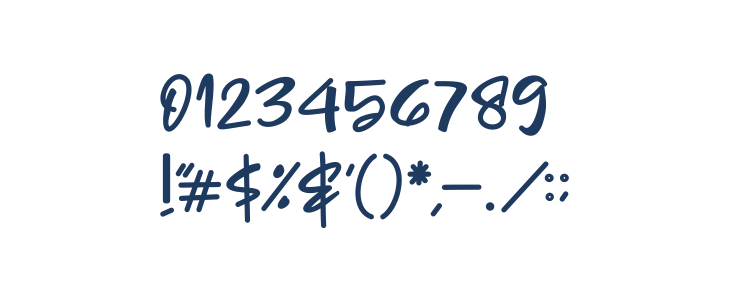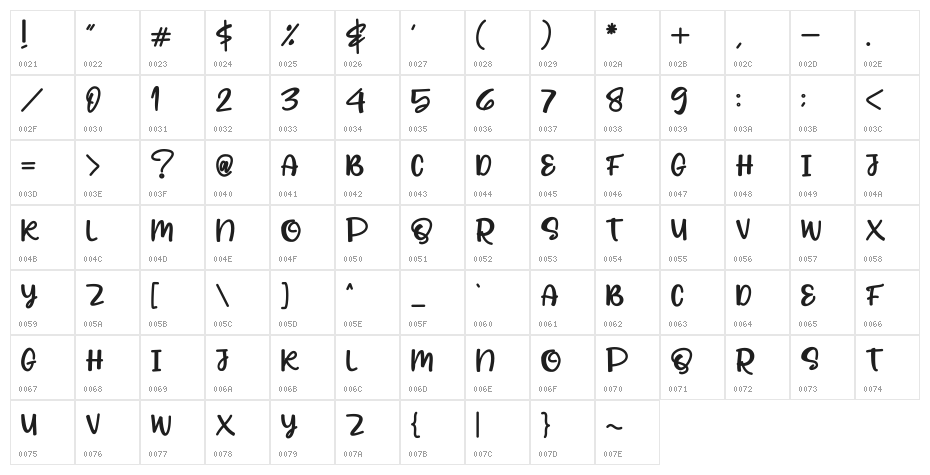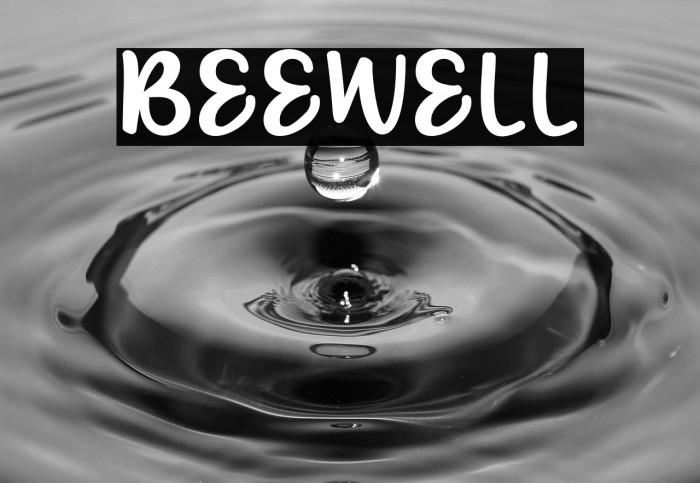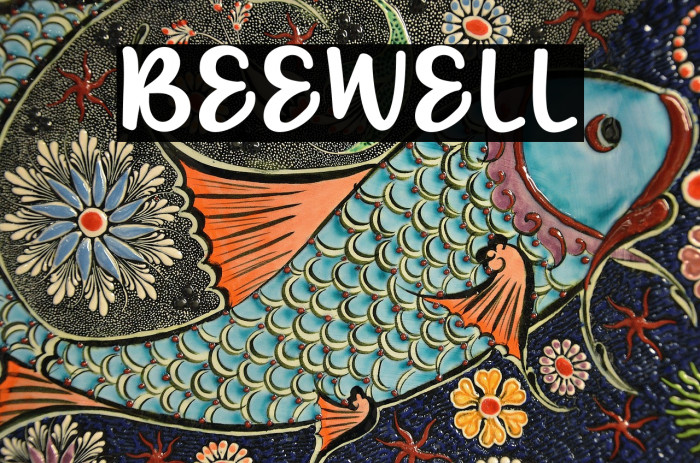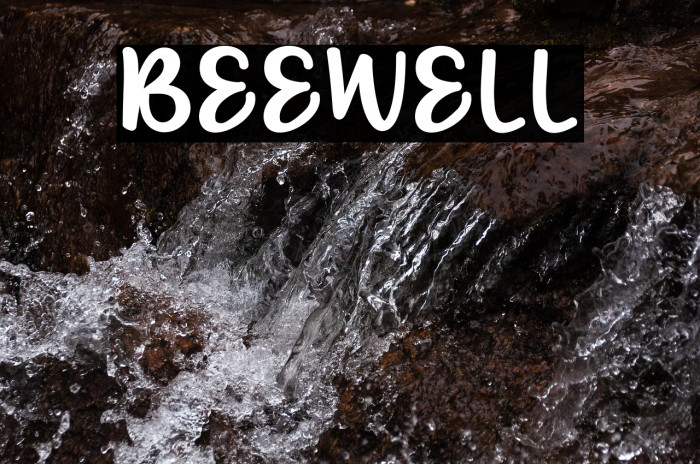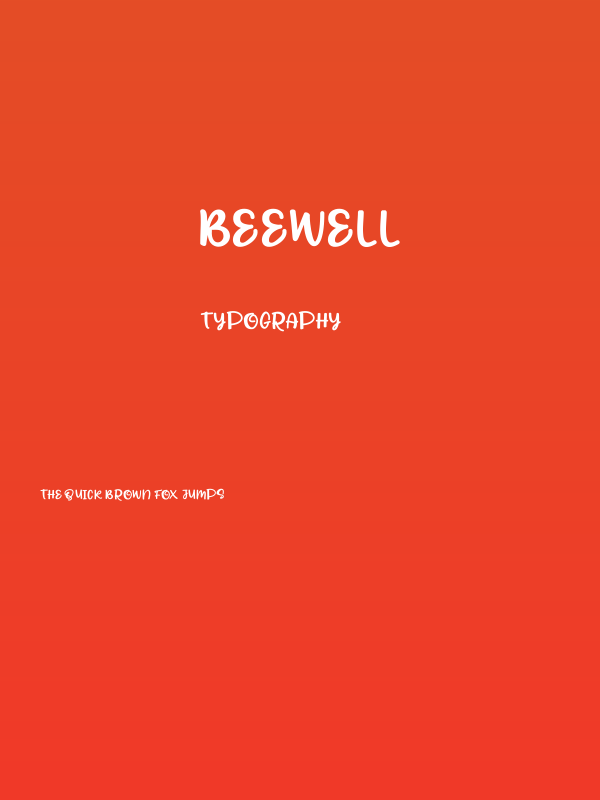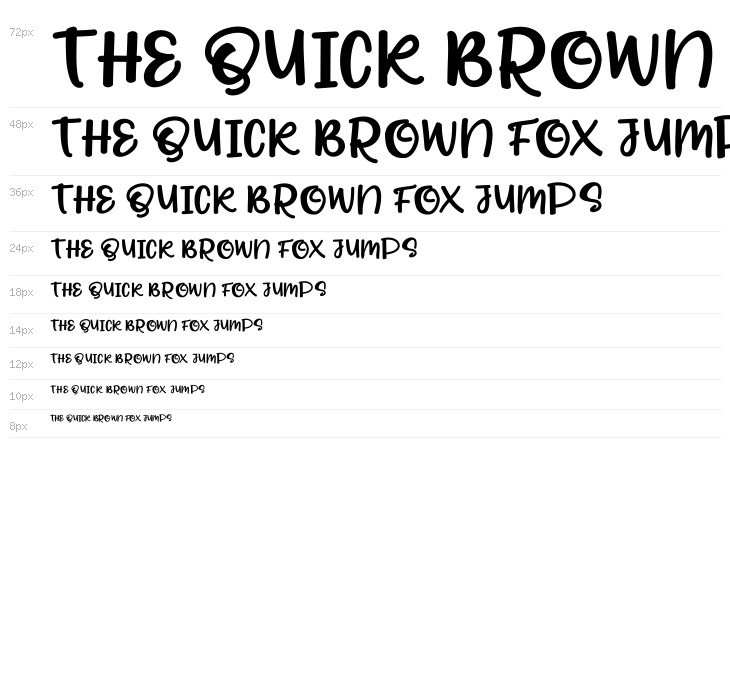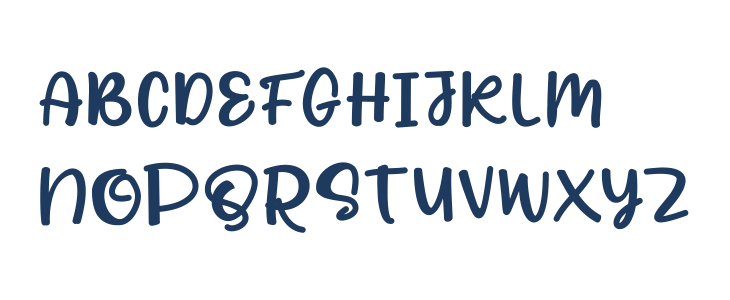
BEEWELL Font
BEEWELL Description
This font features a playful and energetic handwritten style, characterized by its bold and rounded letterforms. The strokes are thick and consistent, giving it a strong presence on the page. The letters are slightly slanted, adding a dynamic and informal feel. The uppercase and lowercase letters maintain a consistent style, with smooth curves and a friendly appearance. The numerals and special characters are equally bold and maintain the playful aesthetic, making the font versatile for various uses.
| Use Case | Logos, Headlines, Informal Text |
| Proposed Projects | Ideal for children's books, playful branding, greeting cards, and informal invitations. |